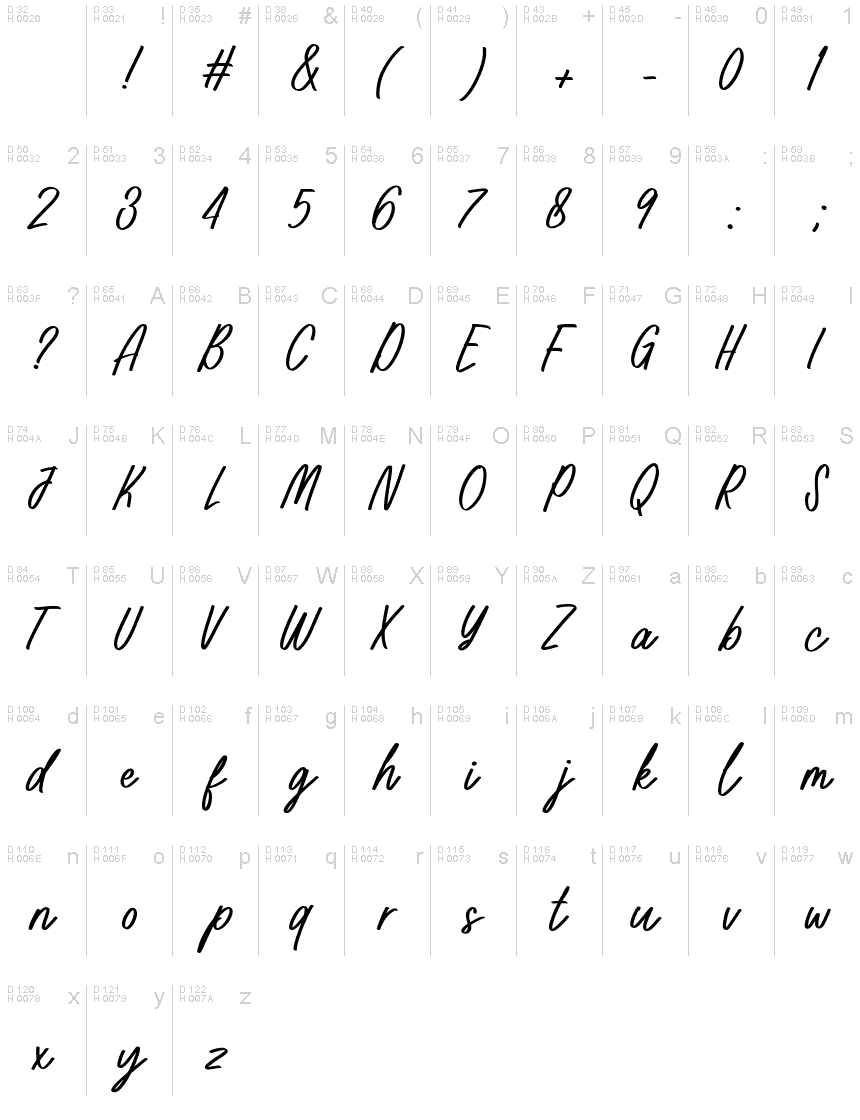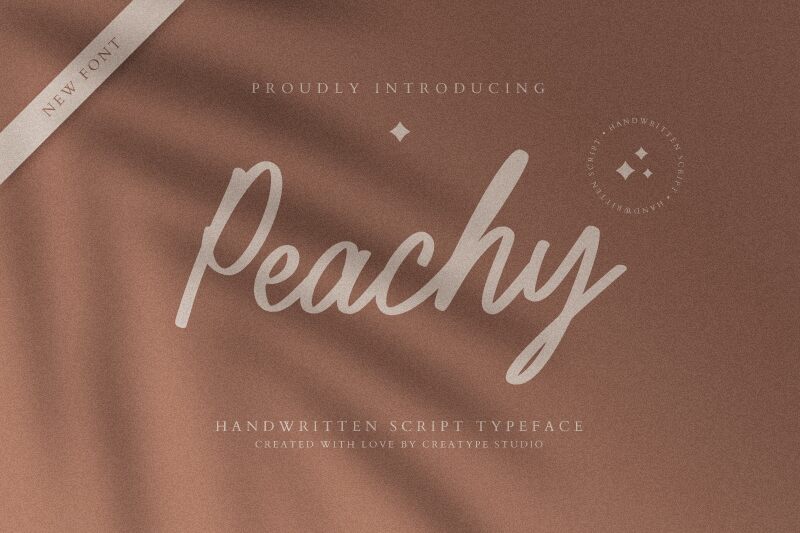
Peachy Regular
Introducing Peachy, a light, narrow handwritten font by Rian Rahardi. Perfect for adding a personal touch to your projects, from greeting cards to logos and branding. Create unique designs with its playful curves and organic feel!